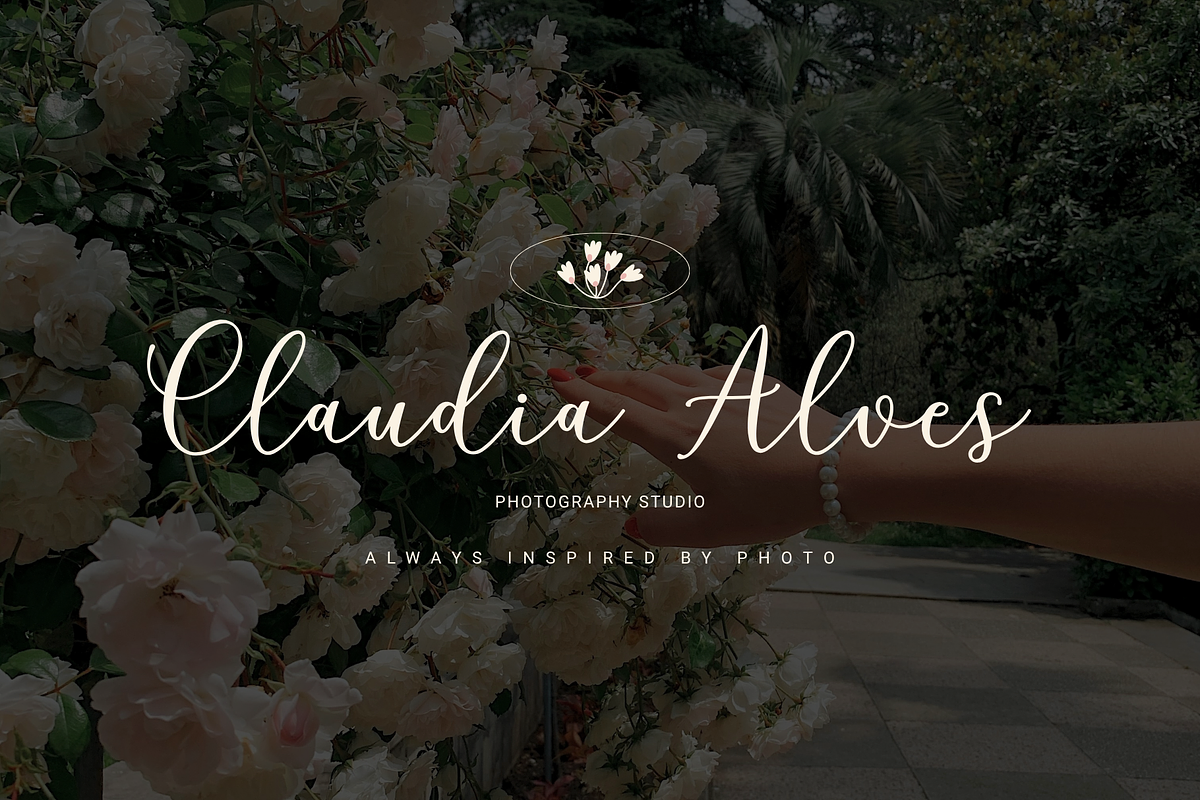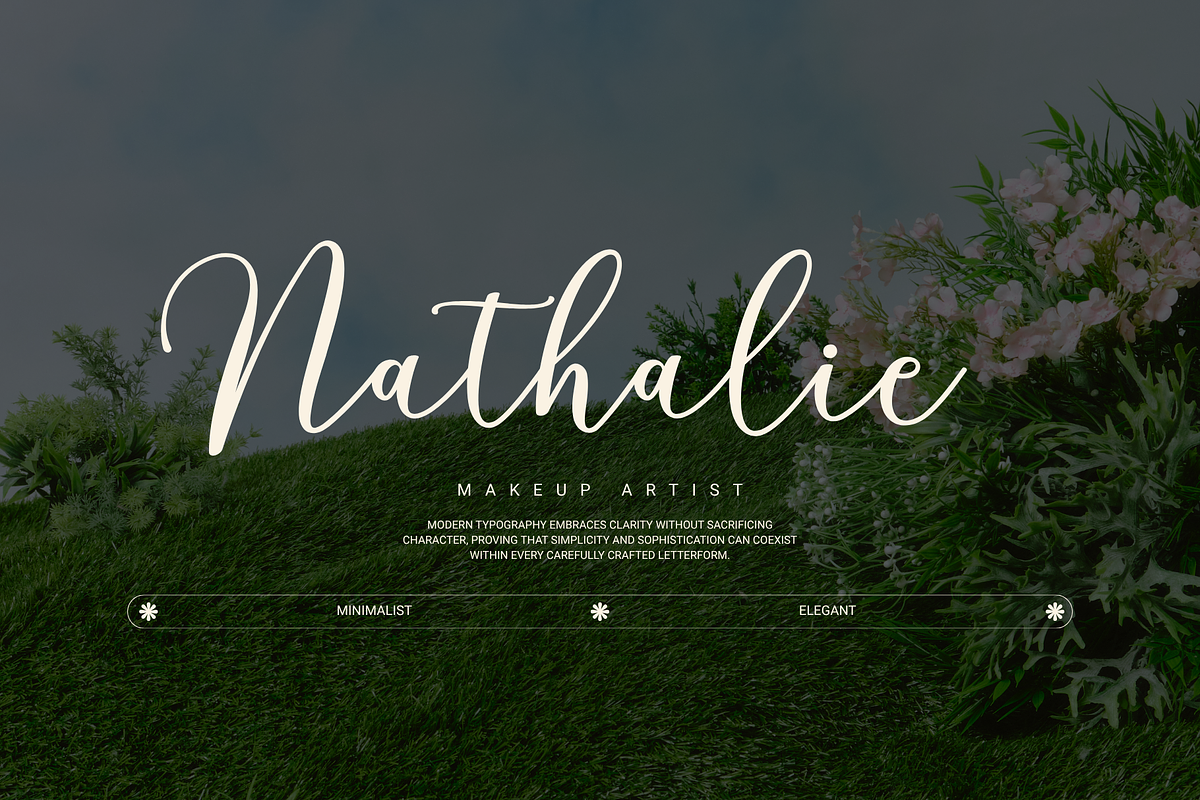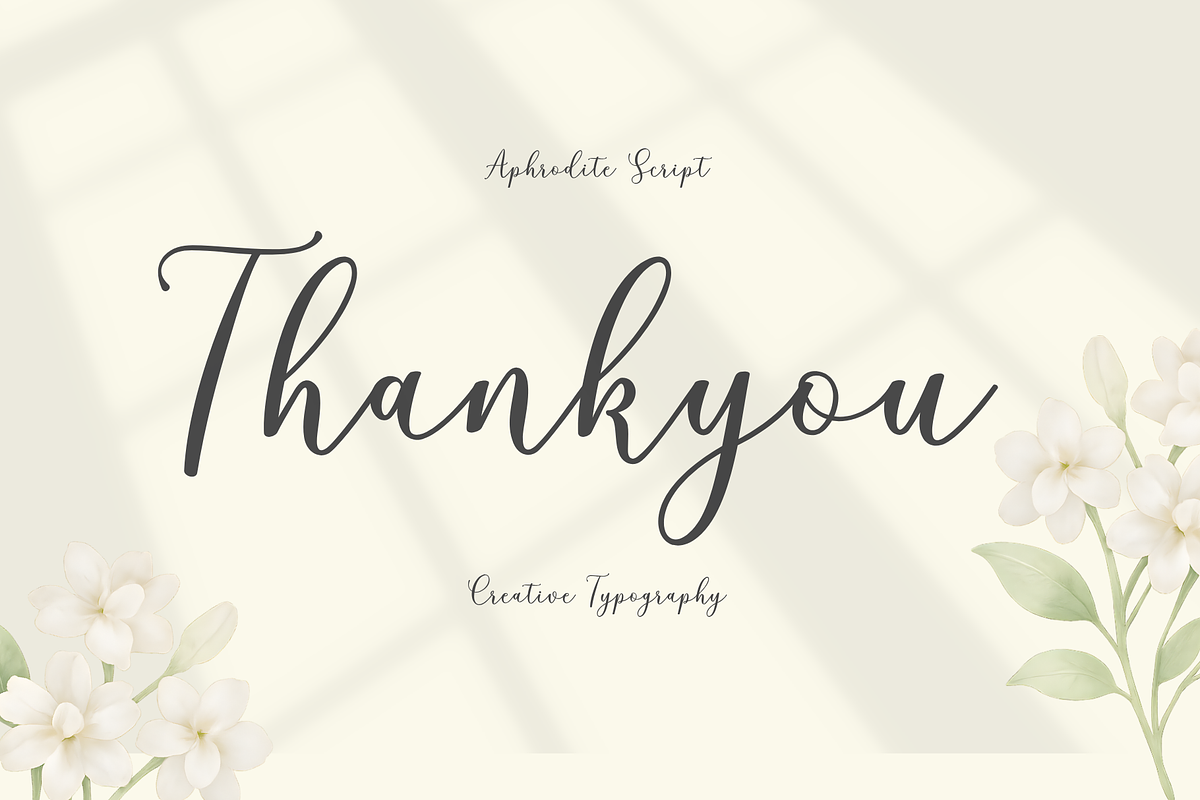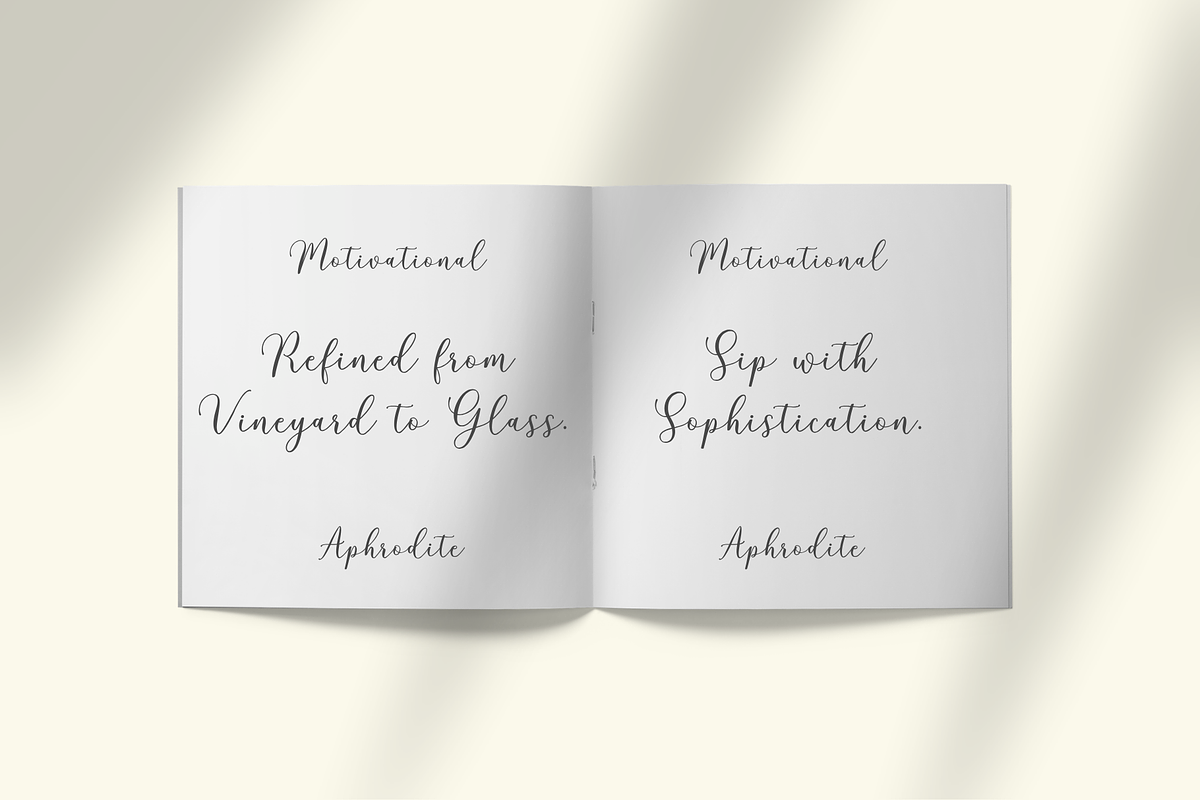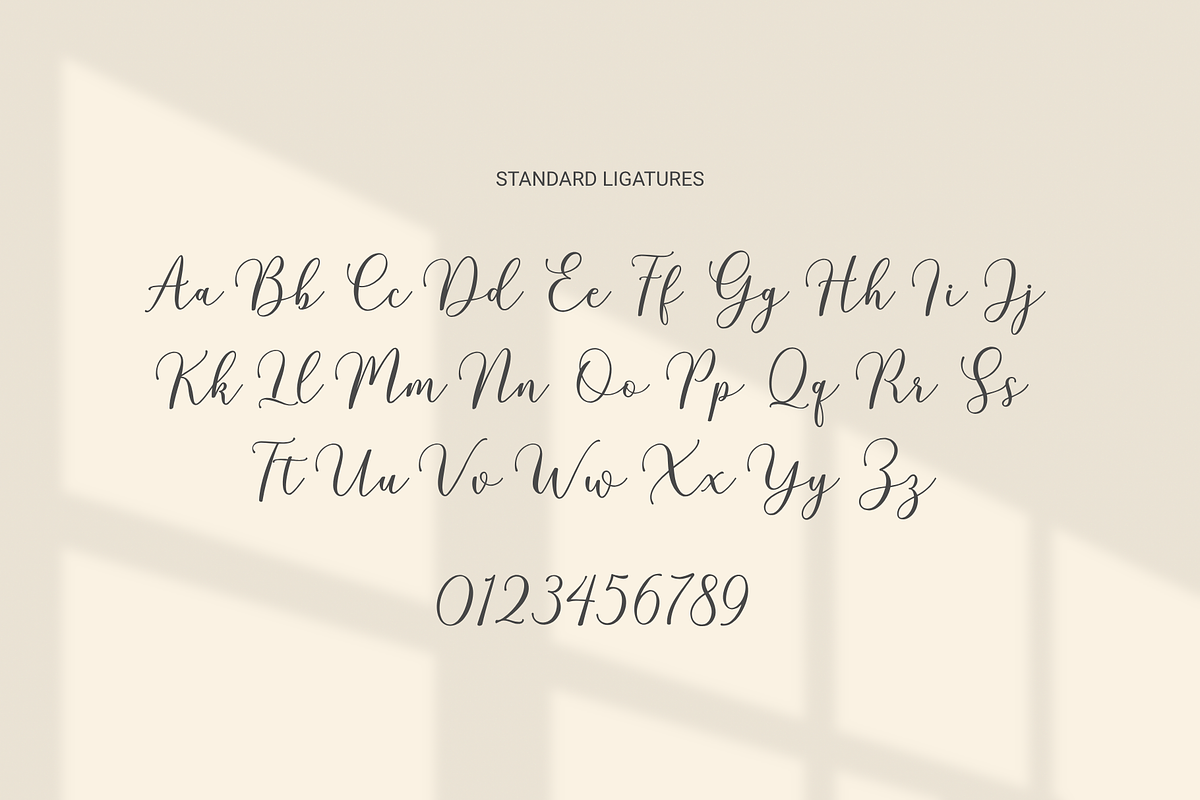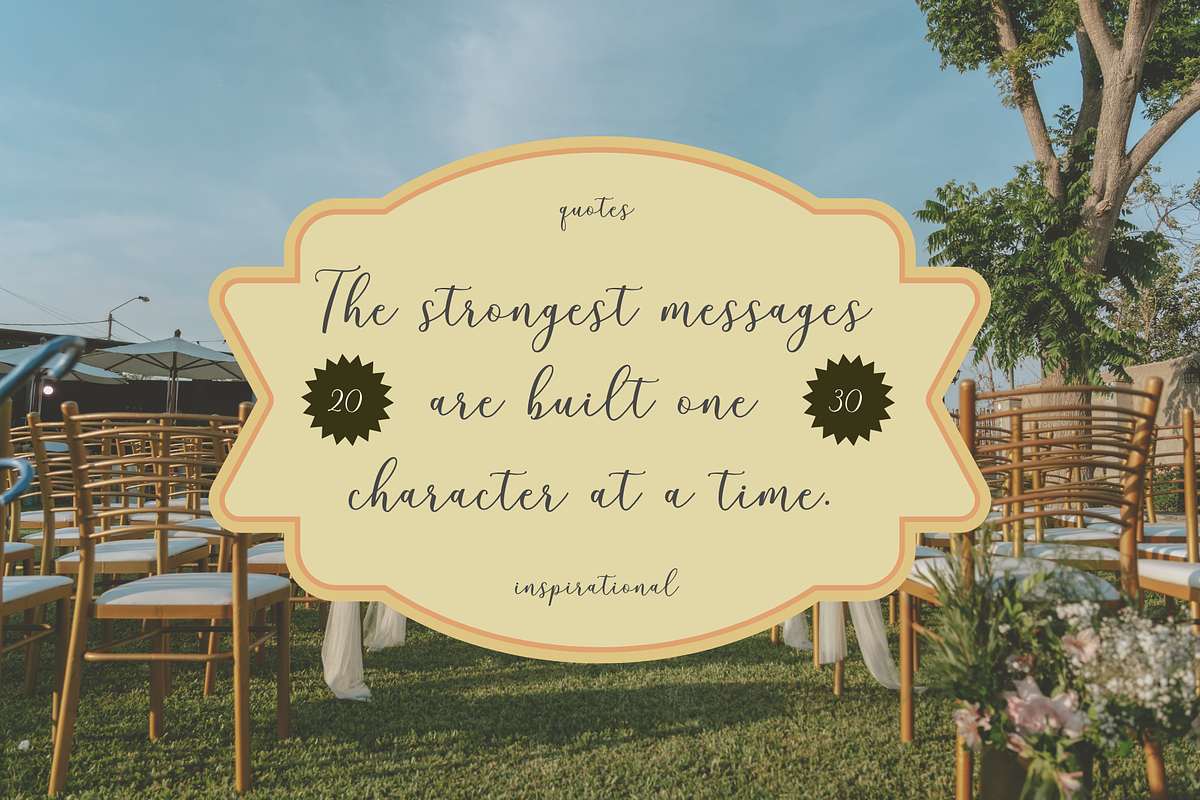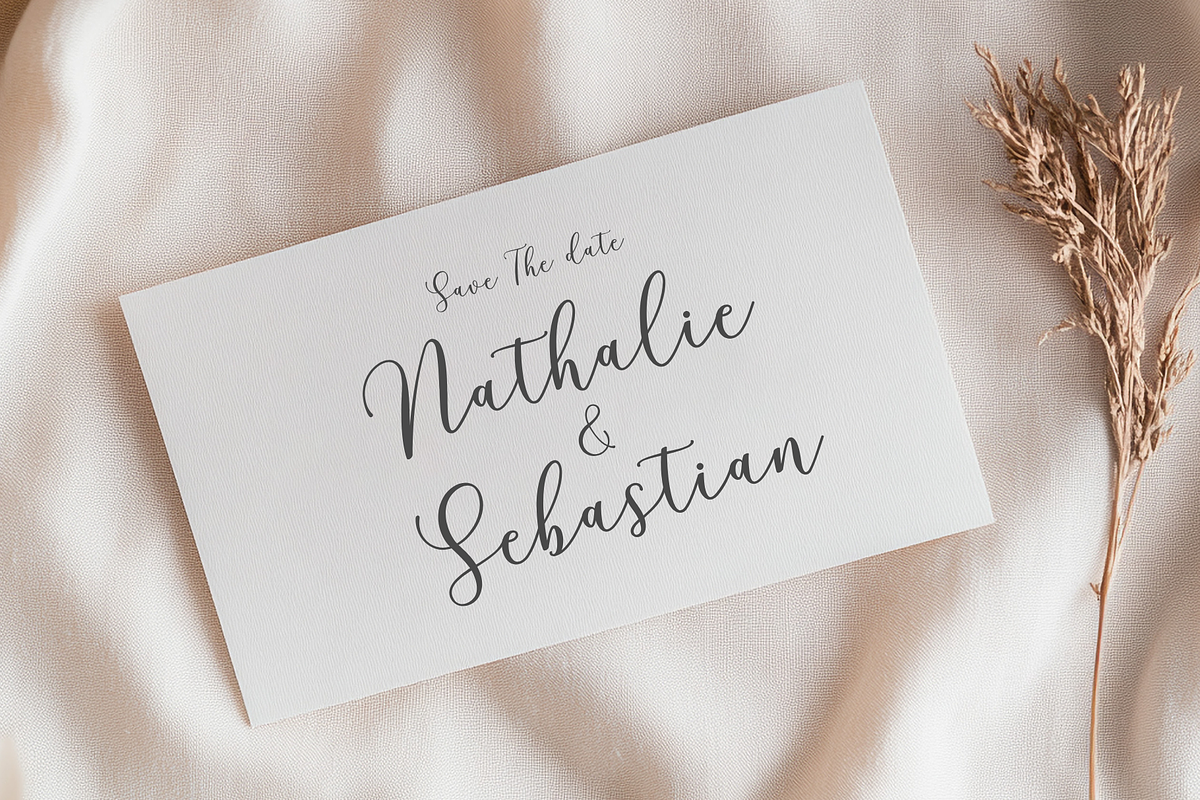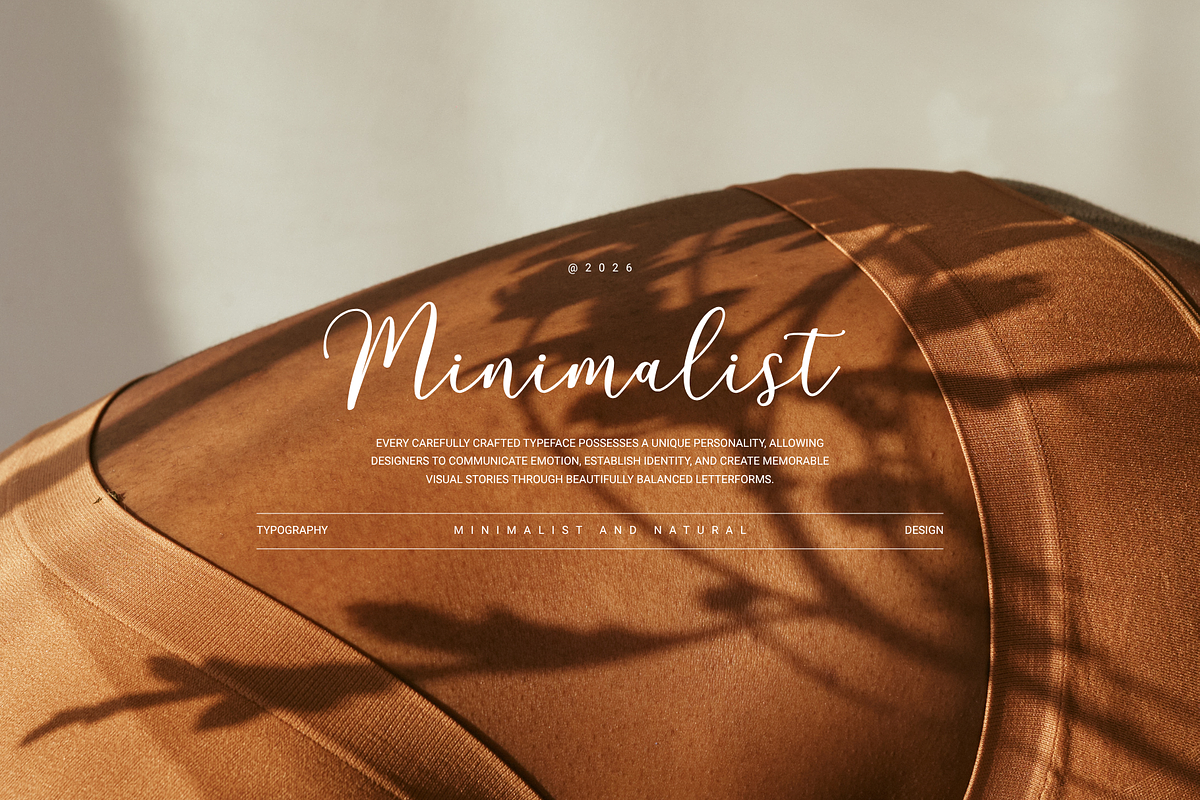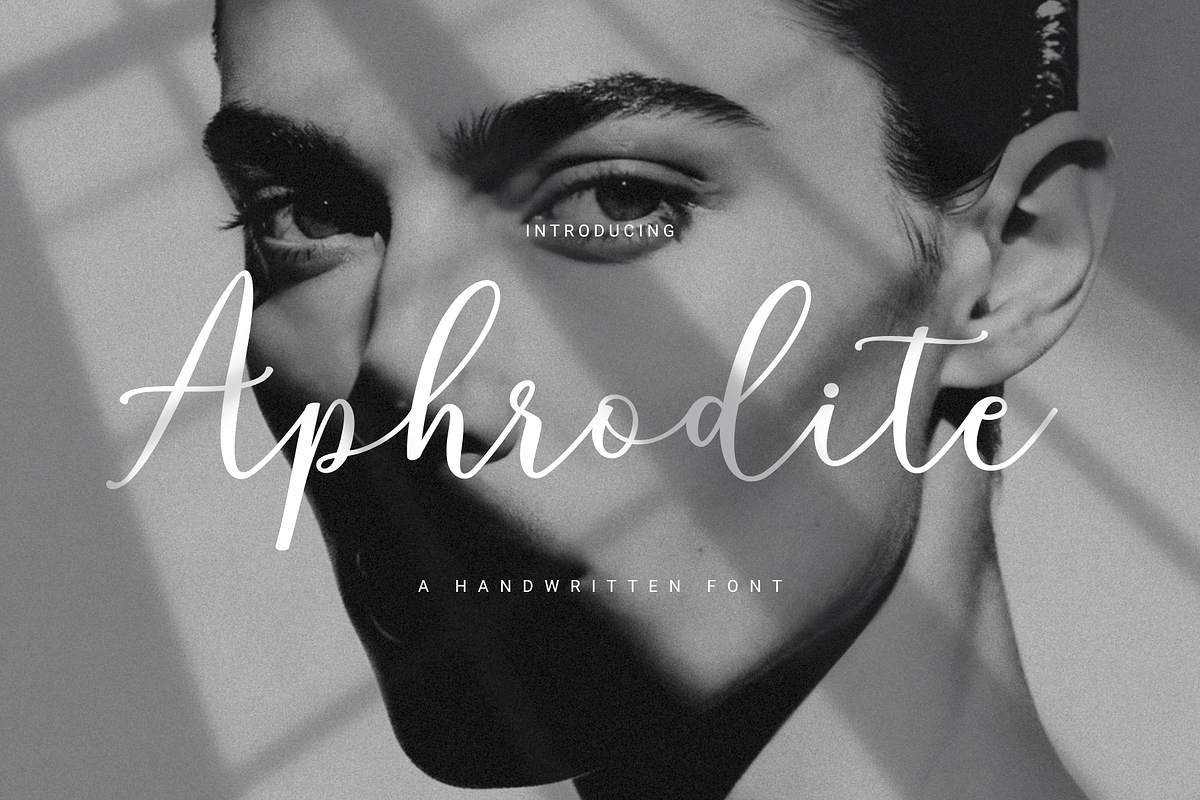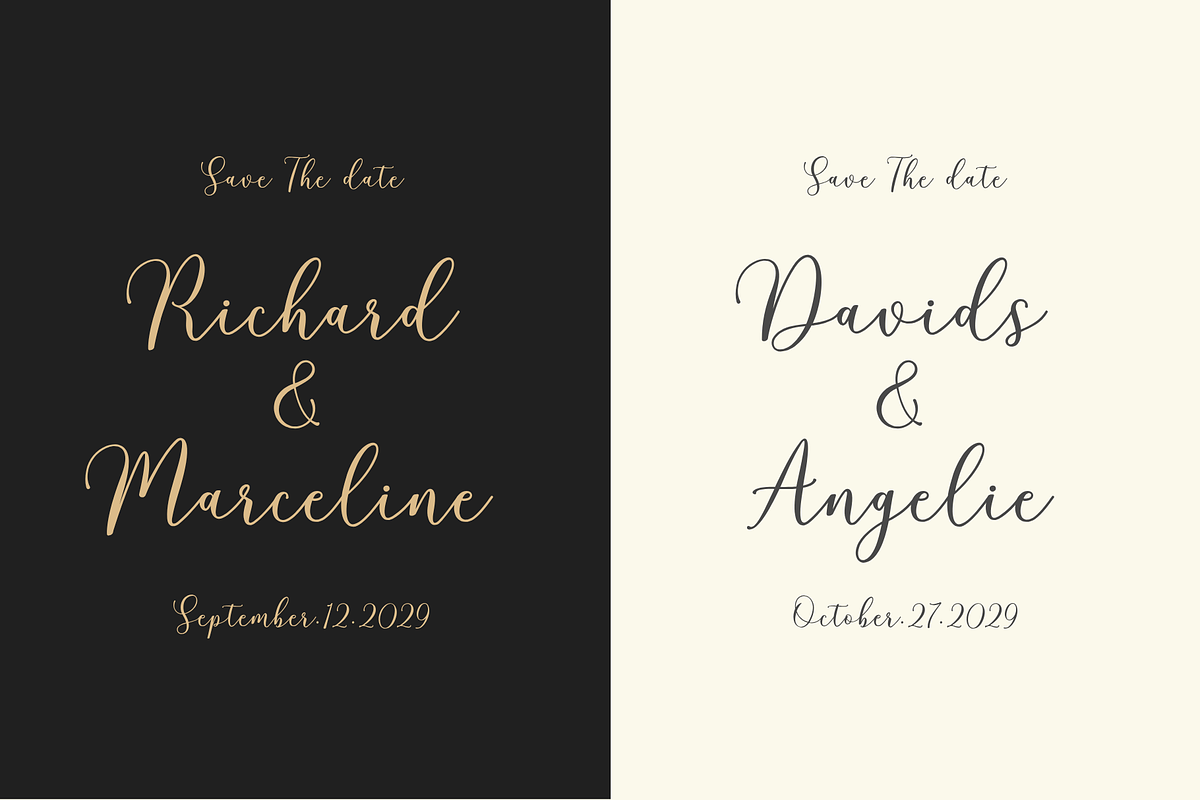
Aphrodite
Aphrodite is an organic, handwritten font suitable for branding, signatures, wedding invitations, promotions, product packaging, and other needs. This font is modern, simple, but still authentic. You'll get a full set of lowercase and uppercase letters, numbers and punctuation, multilingual symbols, initial and final lowercase swashes, binders, and extra swashes.
Aphrodite features OpenType style alternatives, International binders and support for most Western Languages included. To enable the OpenType Stylistic alternative, you need a program that supports OpenType features such as Adobe Illustrator CS, Adobe Indesign & CorelDraw X6-X7, Microsoft Word 2010 or a later version.